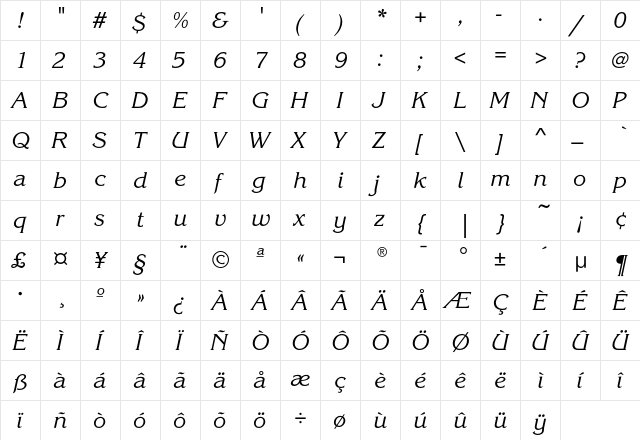
KorinnaEF-KursivRegular Regular
Design Context for KorinnaEF-KursivRegular Typeface
KorinnaEF-KursivRegular offers clean, dependable letterforms without strong stylistic allegiance, making it a practical choice for designers who need flexibility. The slanted form adds forward momentum and visual energy.
Pro Tip: Use KorinnaEF-KursivRegular for emphasis, pull quotes, and subheadings where its slanted energy can add rhythm to the layout.